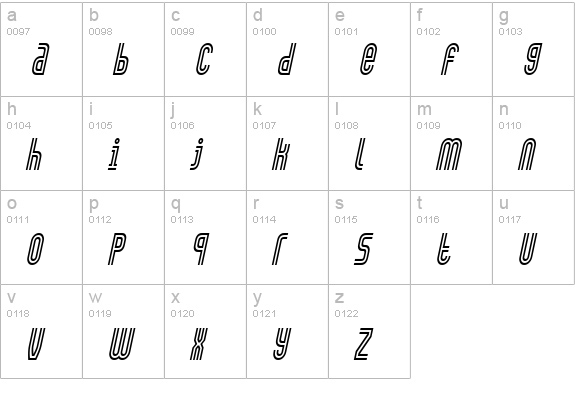
ArchCondensed Italic Font Details
ArchCondensed Italic is a distinctive, italic variant in the ArchCondensed typeface family \xE2\x80\x94 well suited to design and typography projects.
ArchCondensed Italic is a sleek and elegant font that exudes a sense of sophistication and modernity. Its italicized style adds a touch of flair and creativity to any design project. The condensed letterforms make it perfect for fitting more text in limited spaces without sacrificing readability. This font is ideal for use in branding, advertising, headlines, and any project that requires a stylish and contemporary touch. Its unique design sets it apart from traditional fonts, making it a versatile choice for a wide range of applications. The best part is that ArchCondensed Italic is available for free download at FontsMarket.com. This means you can easily access this high-quality font without any cost, making it a valuable addition to your design toolkit. Don't miss out on the opportunity to enhance your projects with this stunning typeface.